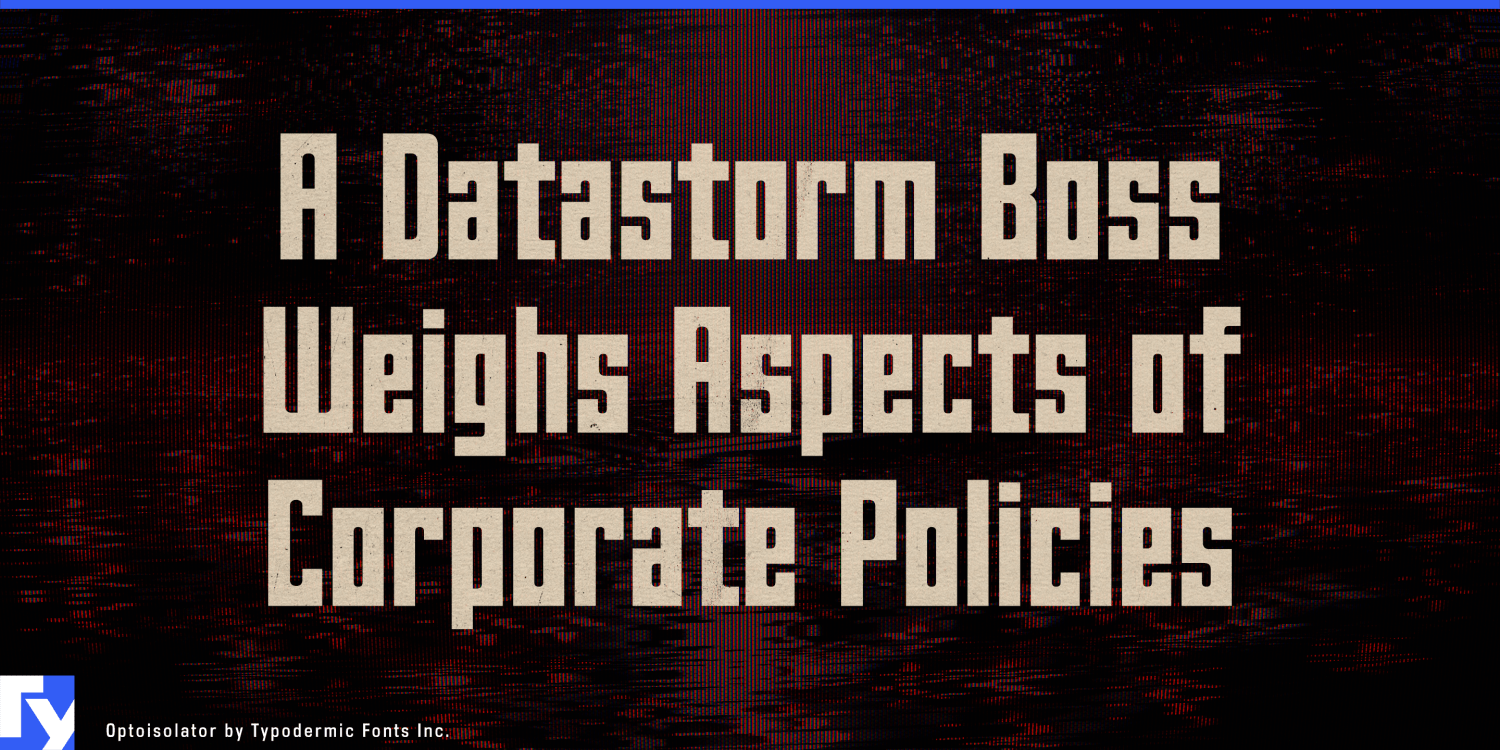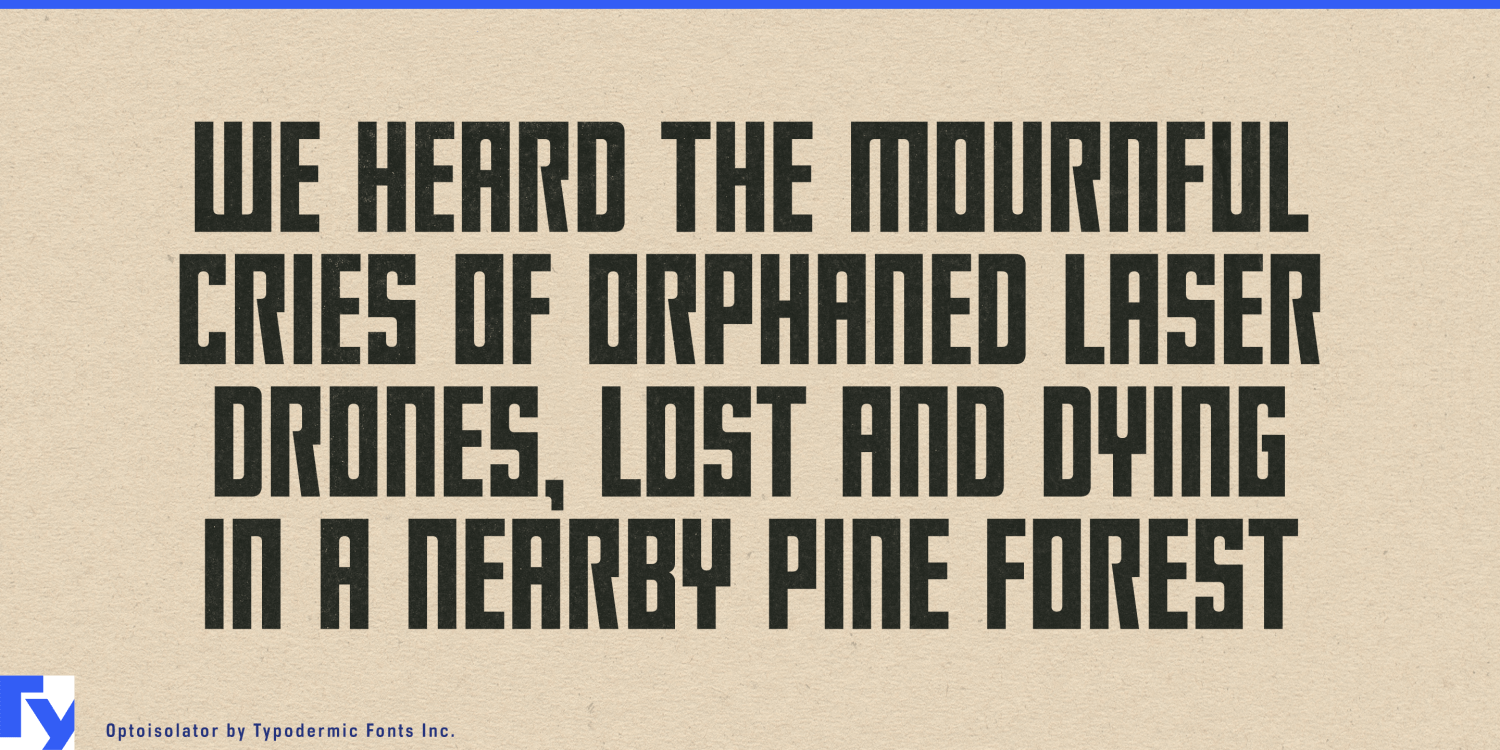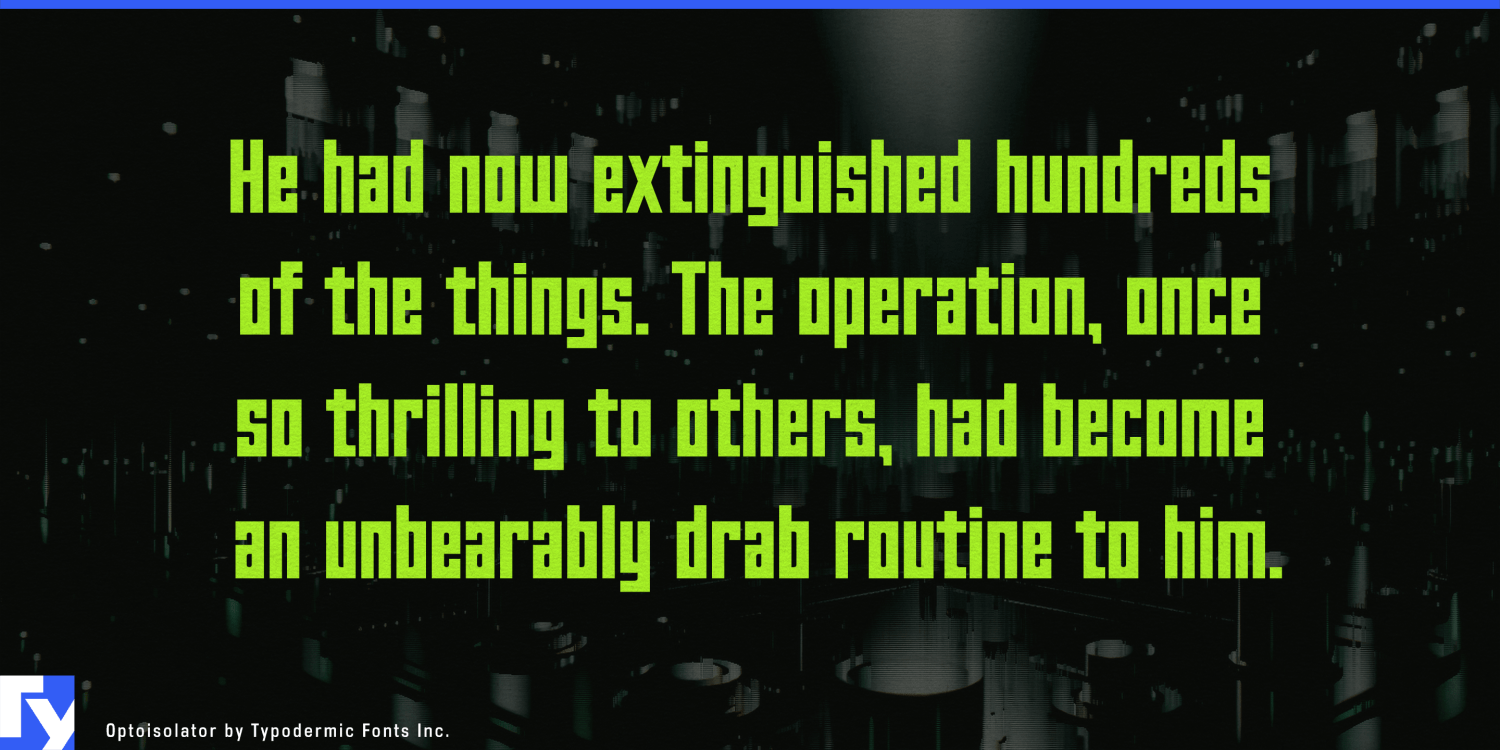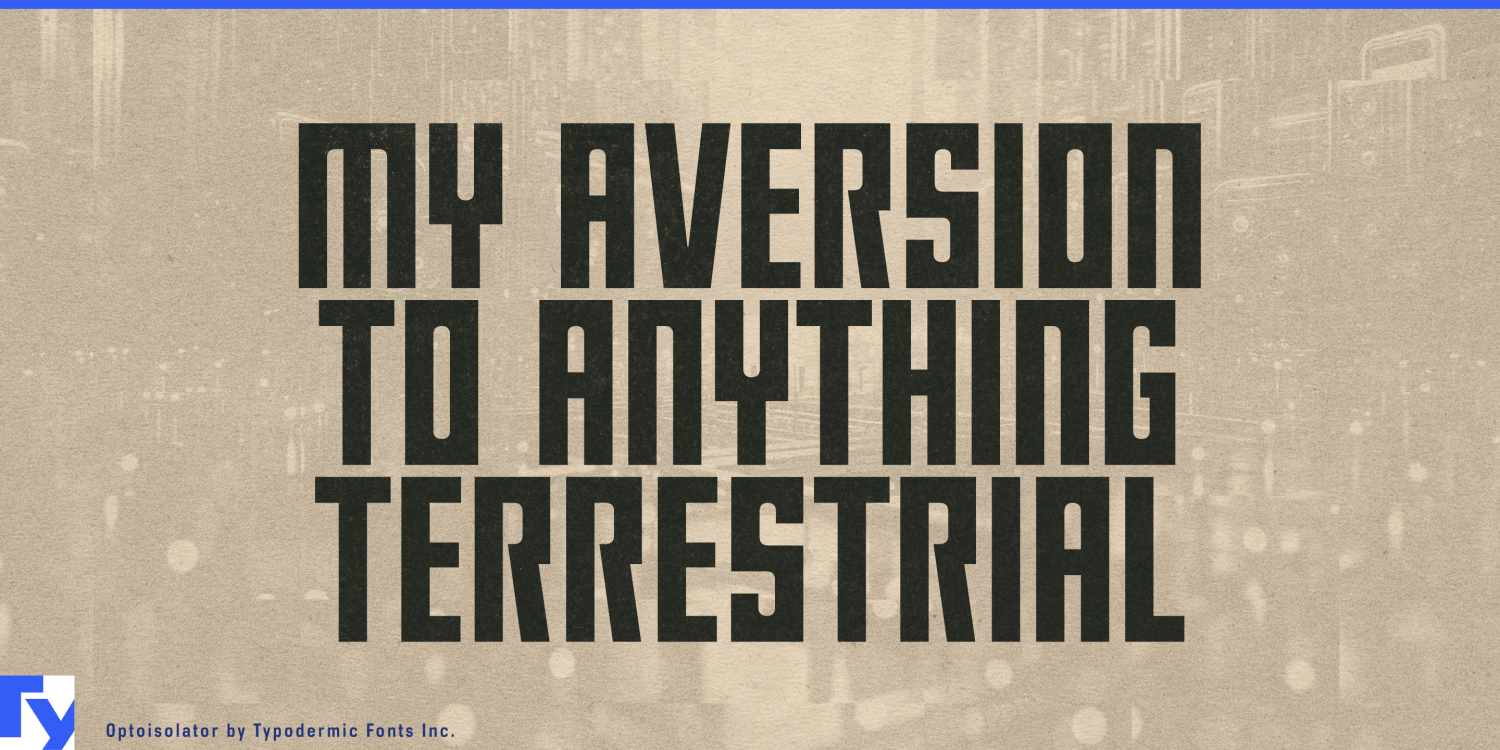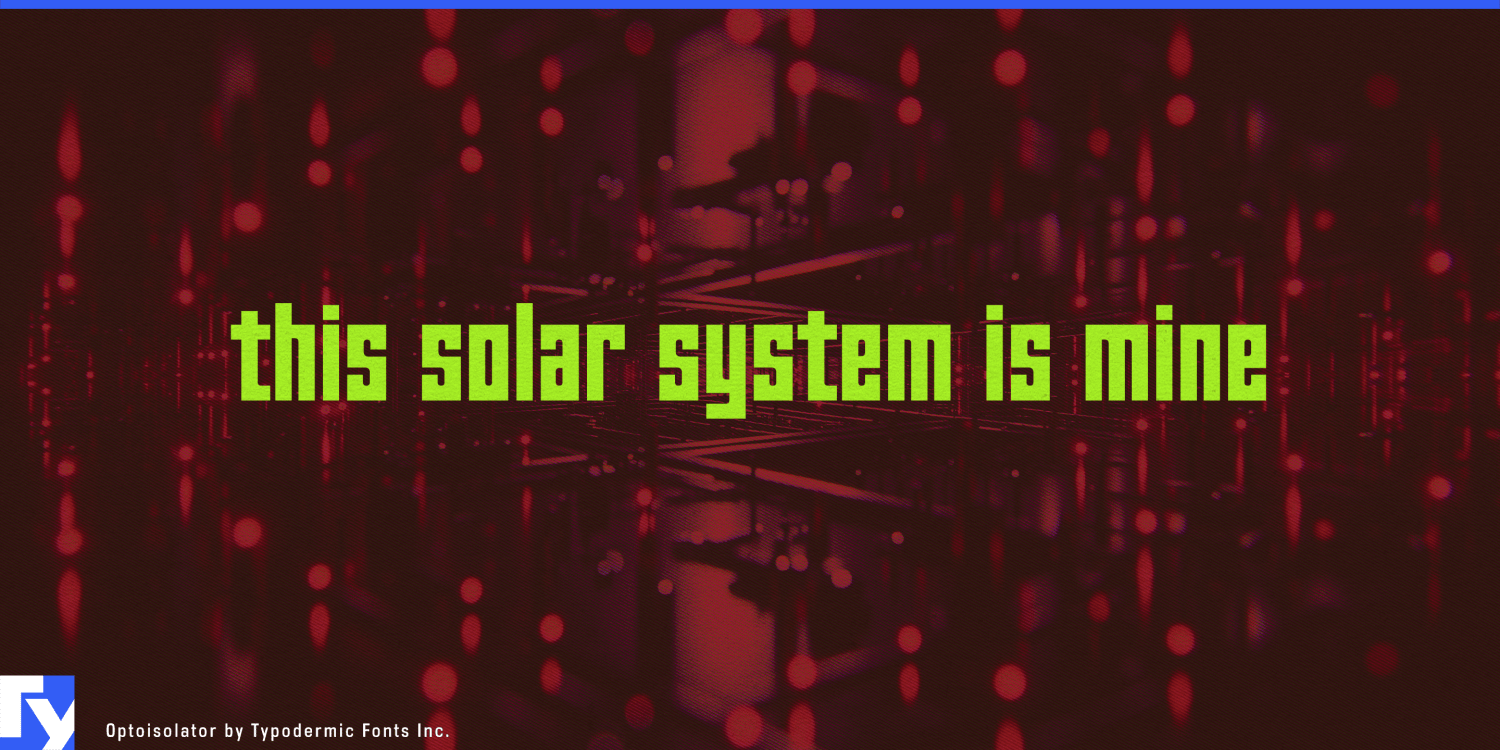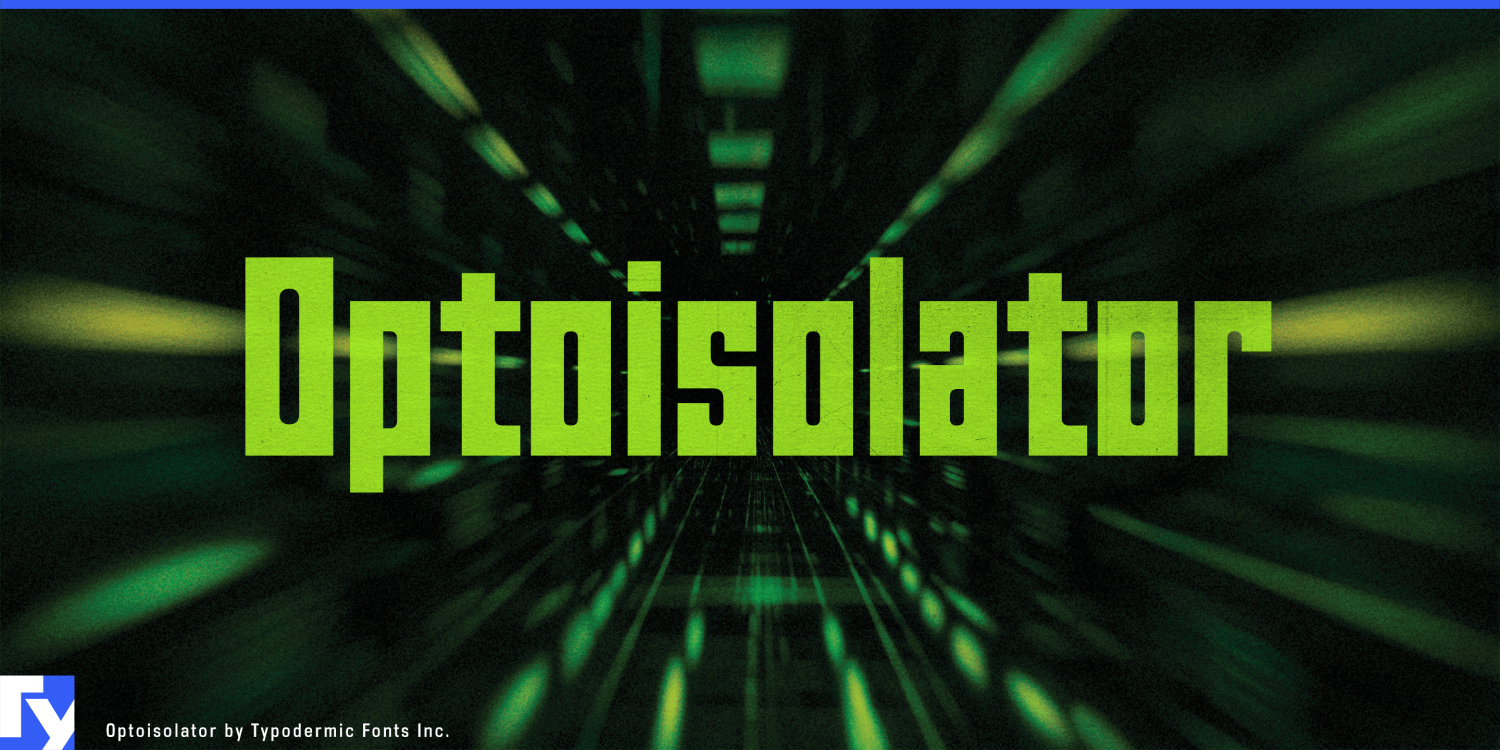
Introducing Optoisolator from Typodermic Fonts, a typeface where cutting-edge technology meets unparalleled precision. Designed for the future, its boxy exterior juxtaposed with meticulously crafted curves on the inside and striking negative shapes, Optoisolator…